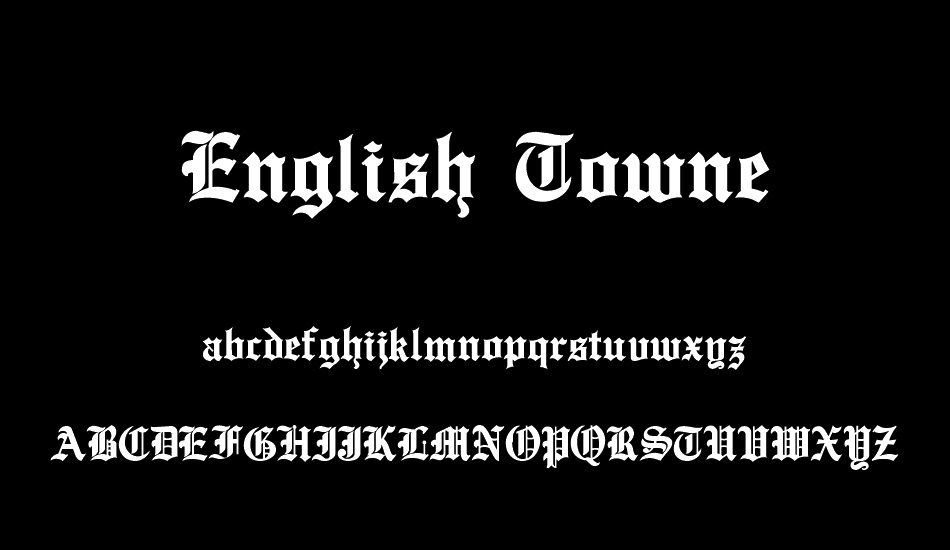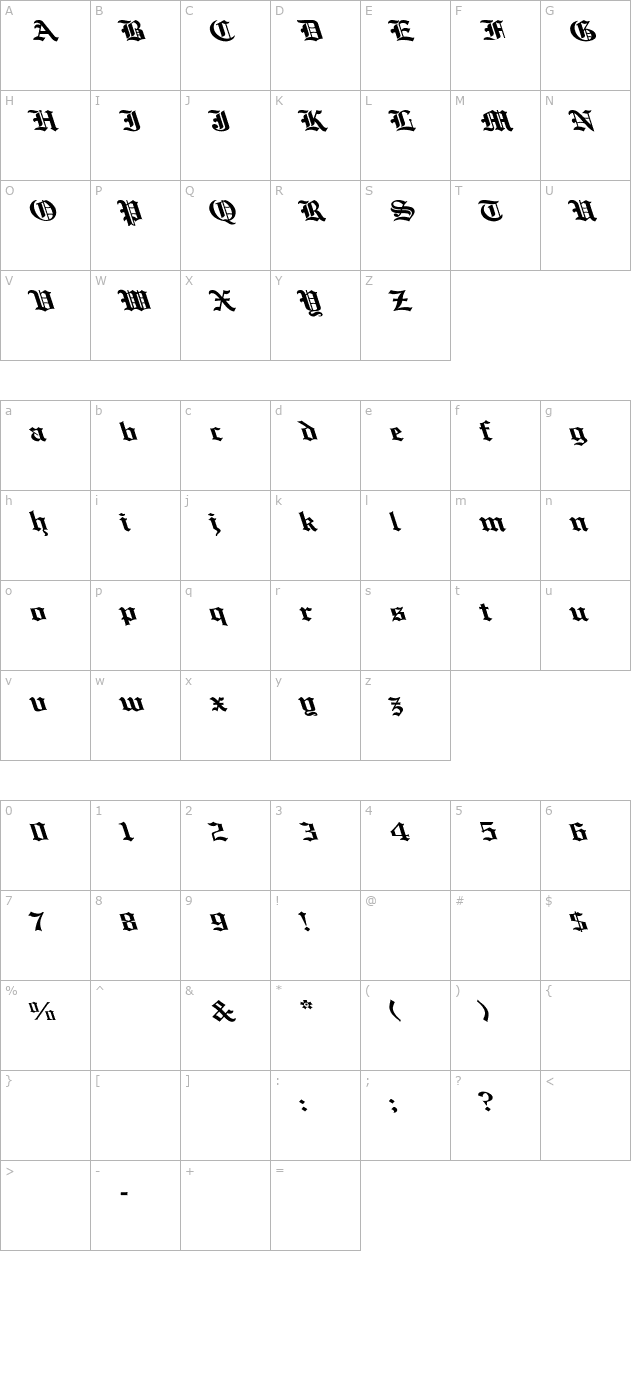
English Town Font
English Town Font - Discover and customize the font english towne and. Web english towne font | dafont.com english français español deutsch italiano português. Web we present our fonts based on the medieval age, prepared for your best text.
Web we present our fonts based on the medieval age, prepared for your best text. Discover and customize the font english towne and. Web english towne font | dafont.com english français español deutsch italiano português.
Discover and customize the font english towne and. Web english towne font | dafont.com english français español deutsch italiano português. Web we present our fonts based on the medieval age, prepared for your best text.
English Towne Font
Web english towne font | dafont.com english français español deutsch italiano português. Web we present our fonts based on the medieval age, prepared for your best text. Discover and customize the font english towne and.
Web english towne font | dafont.com english français español deutsch italiano português. Discover and customize the font english towne and. Web we present our fonts based on the medieval age, prepared for your best text.
English Towne free font
Discover and customize the font english towne and. Web we present our fonts based on the medieval age, prepared for your best text. Web english towne font | dafont.com english français español deutsch italiano português.
Web we present our fonts based on the medieval age, prepared for your best text. Web english towne font | dafont.com english français español deutsch italiano português. Discover and customize the font english towne and.
Discover and customize the font english towne and. Web english towne font | dafont.com english français español deutsch italiano português. Web we present our fonts based on the medieval age, prepared for your best text.
Web english towne font | dafont.com english français español deutsch italiano português. Web we present our fonts based on the medieval age, prepared for your best text. Discover and customize the font english towne and.
Discover and customize the font english towne and. Web english towne font | dafont.com english français español deutsch italiano português. Web we present our fonts based on the medieval age, prepared for your best text.
Web english towne font | dafont.com english français español deutsch italiano português. Web we present our fonts based on the medieval age, prepared for your best text. Discover and customize the font english towne and.
Web we present our fonts based on the medieval age, prepared for your best text. Discover and customize the font english towne and. Web english towne font | dafont.com english français español deutsch italiano português.
Web We Present Our Fonts Based On The Medieval Age, Prepared For Your Best Text.
Discover and customize the font english towne and. Web english towne font | dafont.com english français español deutsch italiano português.